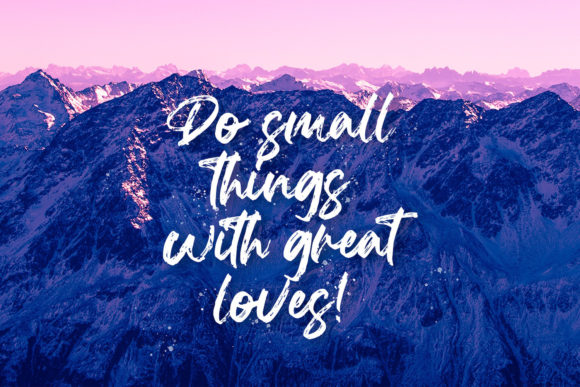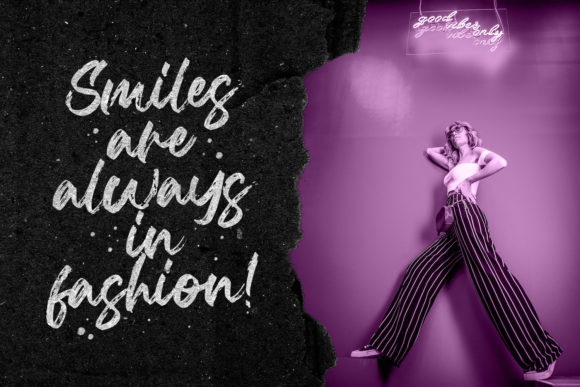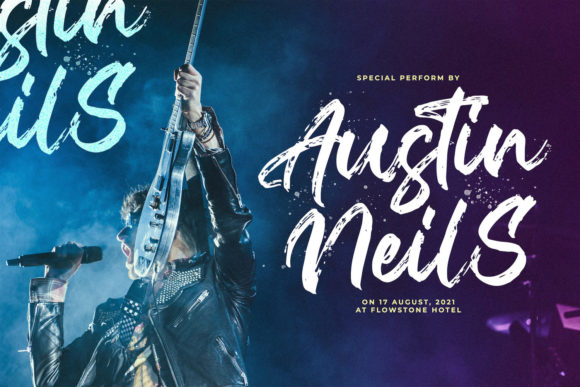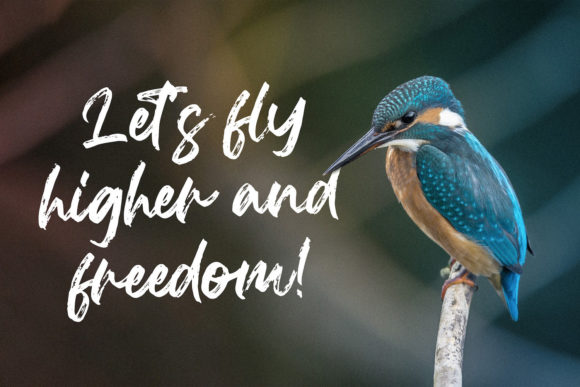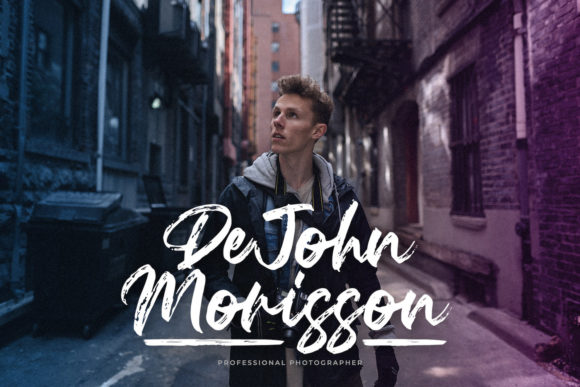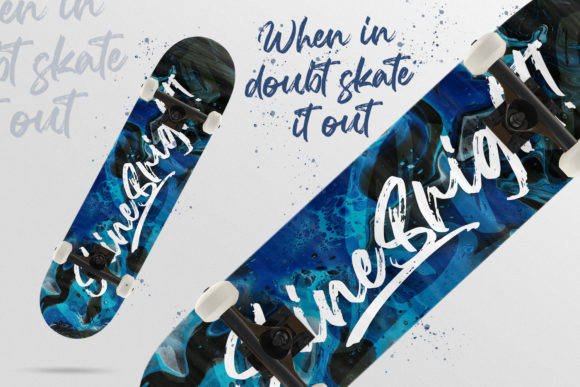
Agethsa Font: Elevate Your Designs with a Touch of Elegance and Whimsy
In the world of typography, fonts play a pivotal role in conveying the essence and aesthetic of a design. Among the myriad of fonts available, Agethsa stands out as a unique and captivating cursive and brushed handwritten font. This gentle yet expressive typeface is designed to infuse a variety of design projects with a joyful and romantic touch, making it a perfect choice for designers and crafters looking to add a personal and elegant flair to their work.
The Charm of Agethsa Font
Agethsa Font is characterized by its fluid, cursive strokes and the distinctive texture of brushed handwritten letters. This combination lends Agethsa a warm, inviting appearance that can transform any design from ordinary to extraordinary. Whether you’re working on wedding invitations, greeting cards, branding materials, or digital content, Agethsa brings a level of sophistication and charm that engages and delights audiences.
One of the key advantages of Agethsa Font is its versatility. Its elegant yet playful demeanor makes it suitable for a wide range of design projects. Here are a few ideas where Agethsa can truly shine:
- Wedding and Event Planning: Use Agethsa to create beautiful wedding invitations, save-the-date cards, and event banners that set the tone for a romantic and memorable occasion.
- Branding and Packaging: Add a touch of elegance and personality to your brand’s packaging, labels, and marketing materials with Agethsa’s distinctive charm.
- Digital Content: Enhance your blog posts, social media graphics, and website headers with Agethsa to give your digital presence a more personal and approachable feel.
- Stationery and Crafts: Perfect for crafters, Agethsa can be used to create custom stationery, journal pages, and craft projects that require a personal touch.
Why Choose Agethsa Font?
Choosing Agethsa Font for your design projects comes with several benefits:
- Unique Aesthetic: Agethsa offers a distinctive look that sets your designs apart from the more common and generic fonts.
- Emotional Connection: The cursive and brushed style of Agethsa can evoke emotions and create a deeper connection with your audience.
- Easy to Read: Despite its elegant and cursive nature, Agethsa is clear and easy to read, making it functional for a variety of applications.
- Customizable: As a digital font, Agethsa can be easily resized, colored, and manipulated to fit your design needs.
Tips for Using Agethsa Font Effectively
To make the most out of Agethsa Font, consider the following tips:
- Pair with Complementary Fonts: Combine Agethsa with clean, sans-serif fonts for contrast and visual interest.
- Play with Colors: Experiment with different colors to match your brand’s palette or the mood of your design.
- Adjust Line Spacing: Ensure readability by adjusting line spacing according to the size and style of your text.
Agethsa Font is a beautiful addition to any designer’s toolkit, offering a unique blend of elegance, whimsy, and versatility. Its cursive and brushed handwritten style brings a touch of romance and joy to a wide array of projects, making it an excellent choice for those looking to add a personal and sophisticated touch to their designs. Whether you’re a professional designer or a crafting enthusiast, Agethsa Font is sure to inspire and elevate your creative endeavors.